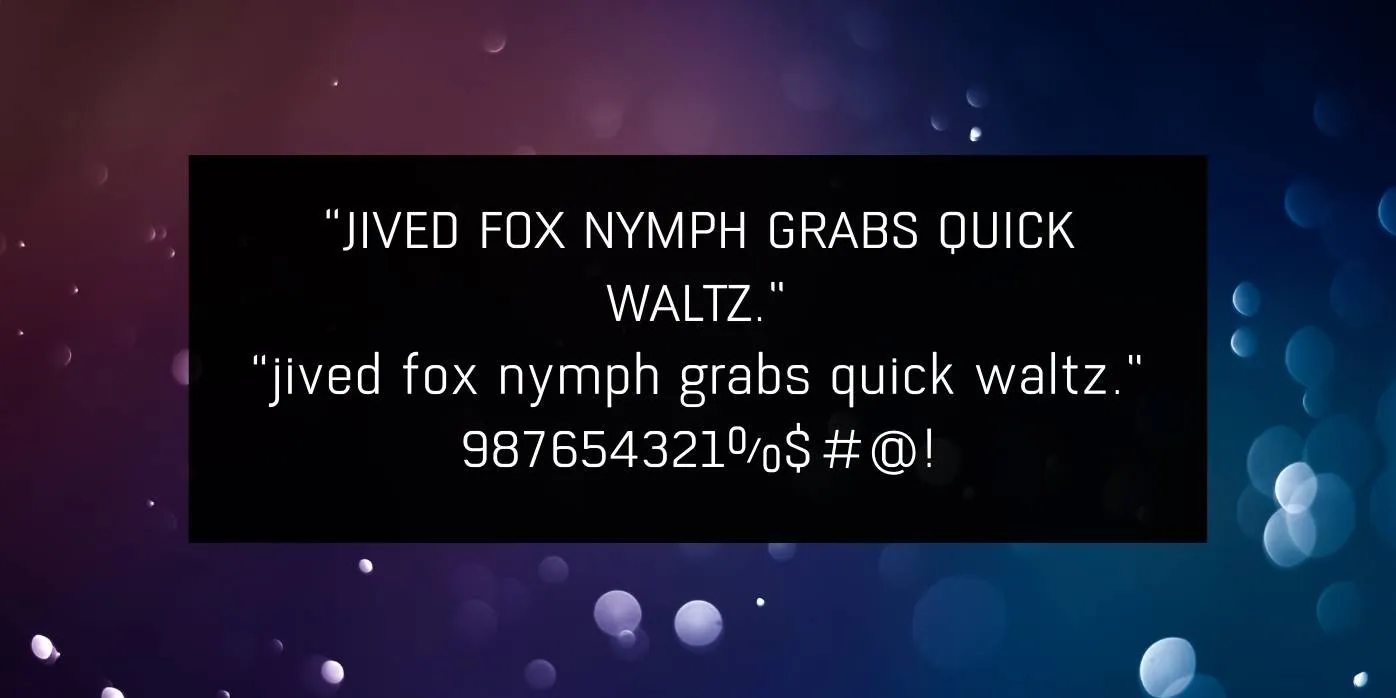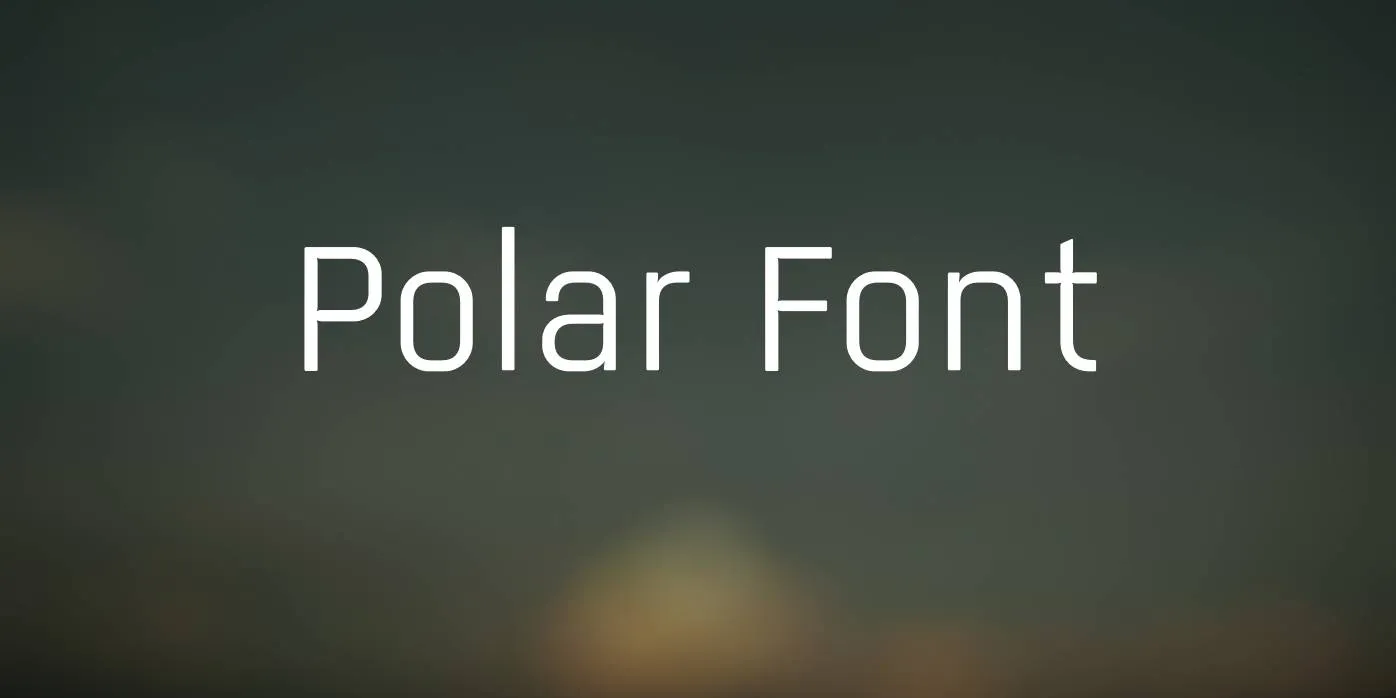
Polar Font
Here, we discuss Polar Font which belongs to the category of sans serif family. This staggering typeface was designed by Daniel Uzquino.  The main aim of this font is to provide a quality product that would be useful for both designers and end customers. Its copy-and-paste function is best for various designs. Polar Typeface is an excellent choice for those who are looking for a versatile sans serif typeface.
It offers an extensive character set with a wide range of weights and styles. The typeface includes 9 different styles, from light to black. This font family also comprises small caps, old-style figures, fractions, and many other features. You can use avenir font which has the same style and characters as this one.